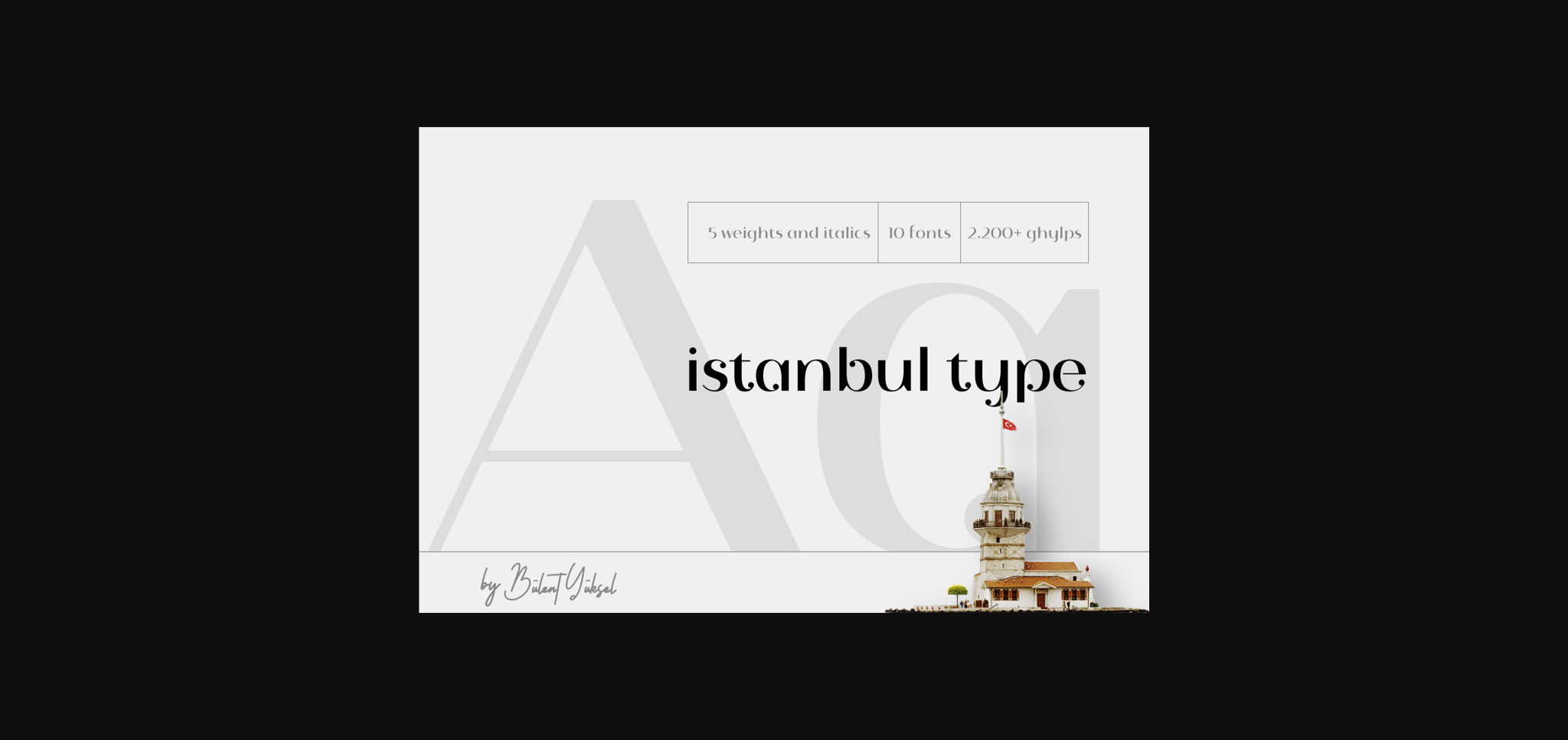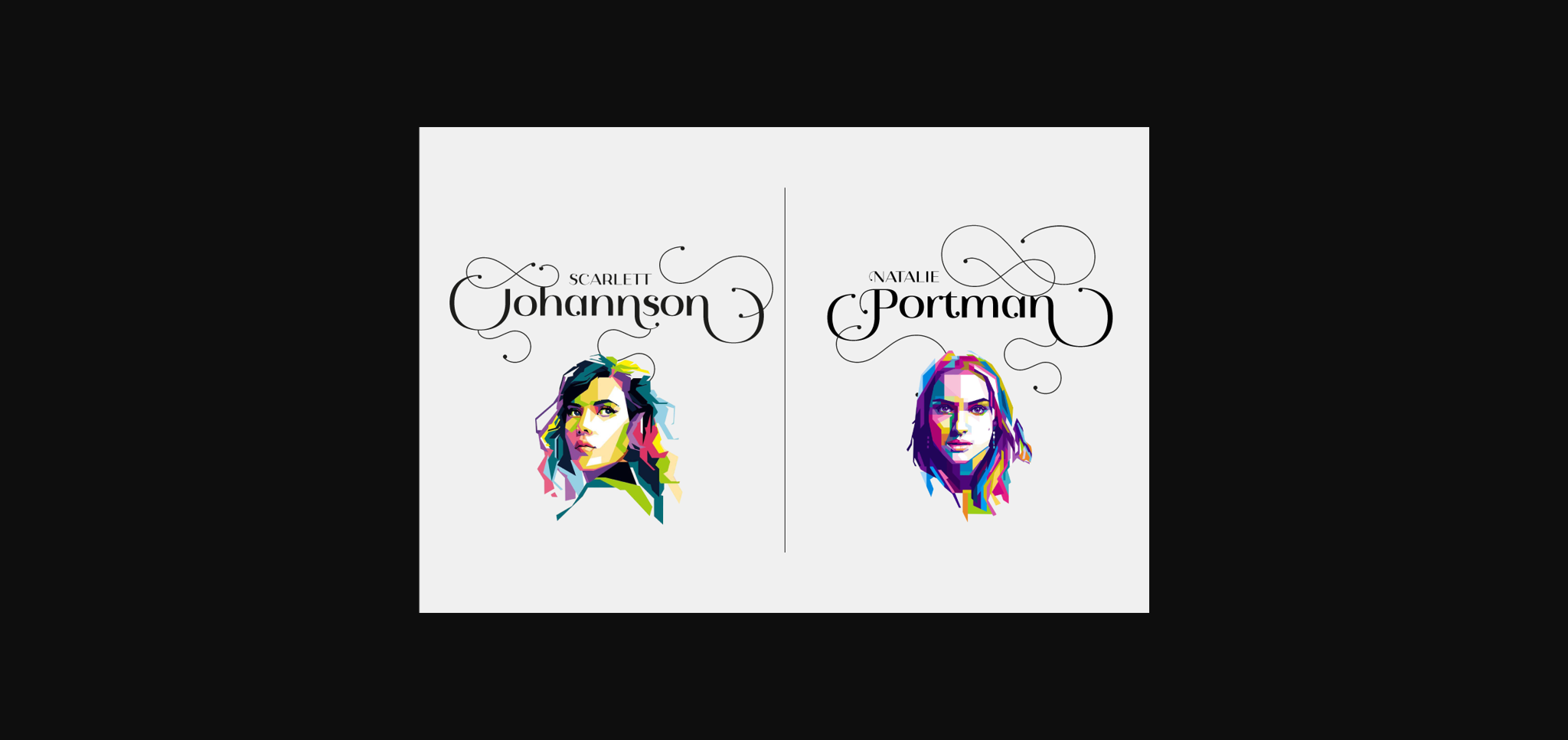
About Istanbul Type Font
Istanbul Type is a minimal and neat sans serif font. It can easily be matched to an incredibly large set of projects, so add it to your creative ideas and notice how it makes them stand out!